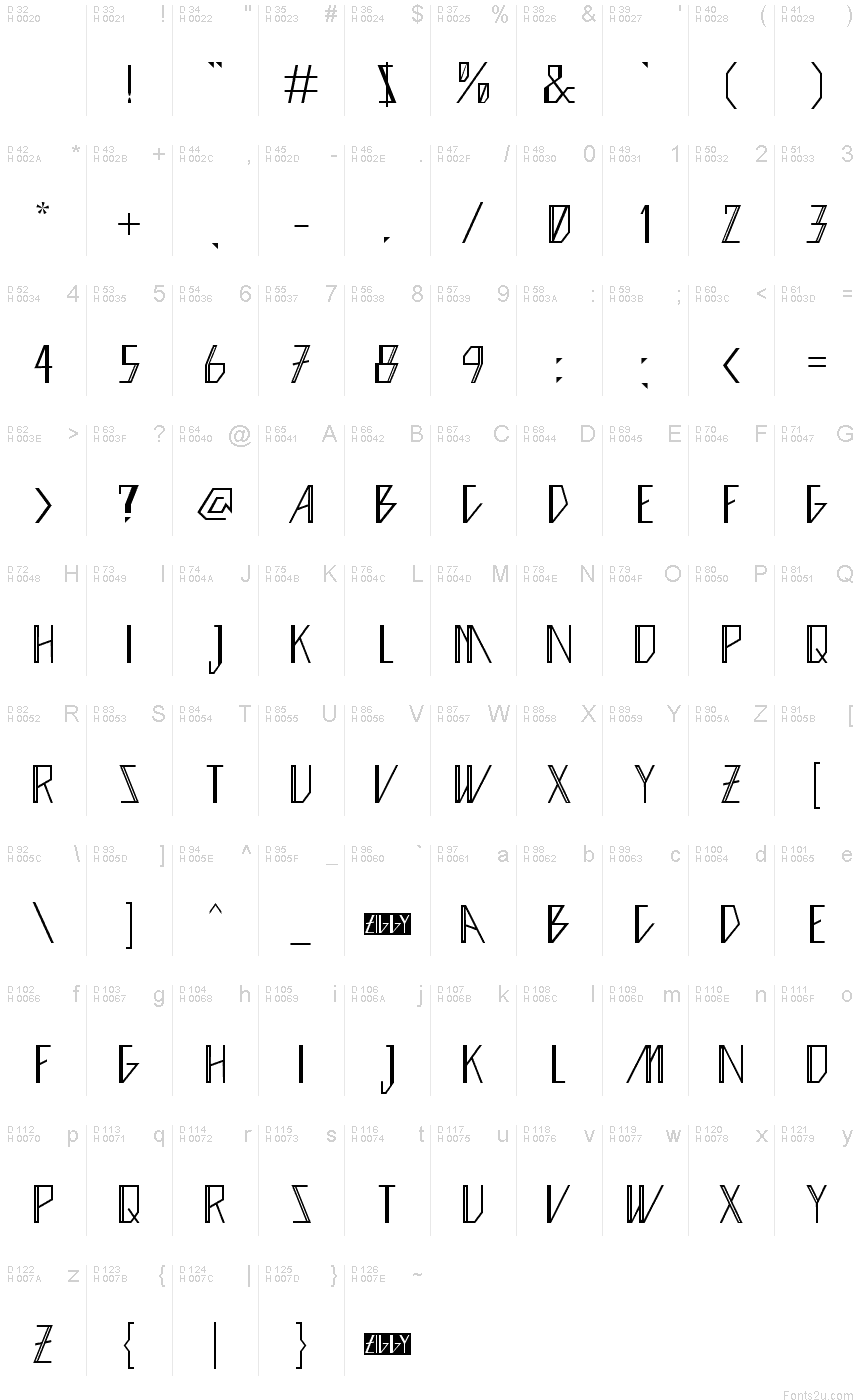
Ziggy Strip by Andriansyah MK is a free futuristic display font with extremely tall, narrow capitals and a stripped-back linear build. Long verticals, sharp diagonals, and occasional doubled strokes give the letters the look of technical diagrams or illuminated signage.
A science-fiction poster is its clearest setting, especially when the lettering needs to echo architecture or circuitry. The same angular economy suits electronic music packaging and sleek game interfaces. On magazine covers, its unusual silhouettes can turn a title into part of the editorial image rather than a neutral caption.